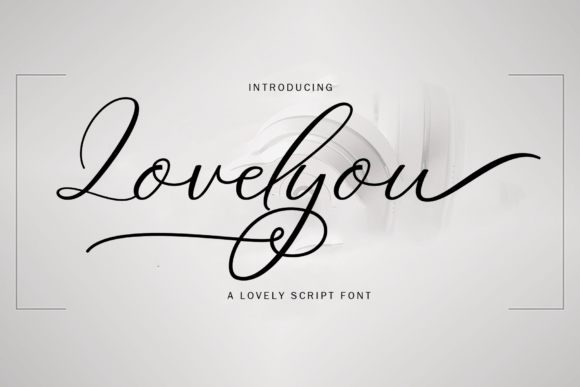
Unleash the Elegance with Lovelyou: A Script Font for Timeless Impressions
In a world where digital communication reigns supreme, handwritten sentiments hold a unique allure. Introducing Lovelyou, a script font that exudes sophistication and charm, transforming your digital creations into masterpieces of elegance.
With its graceful curves and delicate strokes, Lovelyou captures the essence of handwritten artistry. It's a font that speaks of romance, warmth, and individuality, leaving a lasting impression on your audience.
Whether you're crafting heartfelt wedding invitations, expressing gratitude with thank-you cards, or creating captivating quotes to share with the world, Lovelyou is your perfect companion. Its versatility extends to logos, business cards, and any design that demands a touch of timeless charm.
Imagine your wedding invitations adorned with Lovelyou's graceful strokes, carrying the promise of a lifelong journey. Picture your thank-you cards, handwritten with Lovelyou's gentle touch, conveying your heartfelt gratitude. Envision your logos and business cards exuding professionalism and elegance, leaving a lasting impression on clients and partners alike.
Lovelyou isn't just a font; it's an emblem of artistry and grace, a tool to elevate your digital creations beyond the ordinary. Its presence adds a touch of magic, transforming the mundane into the extraordinary.
So embrace the beauty of Lovelyou, let its elegant curves enchant your audience, and create digital masterpieces that stand the test of time. Lovelyou awaits your creative touch, ready to transform your words into works of art.